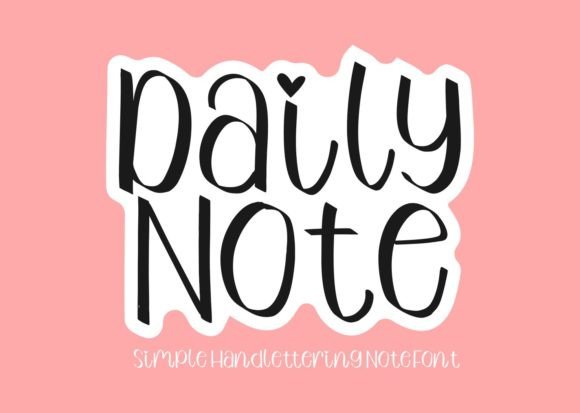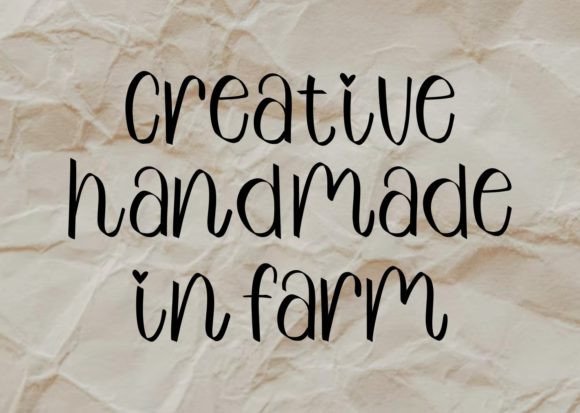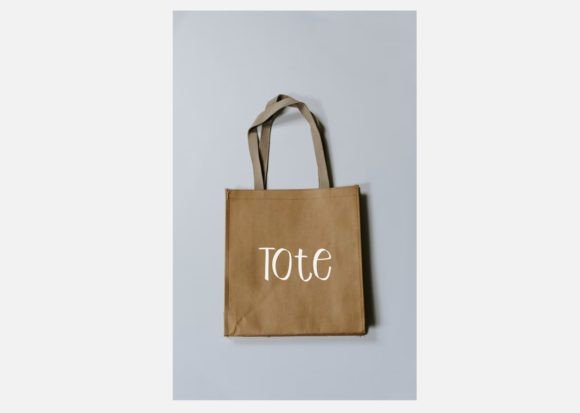
About Daily Note Font Download
The Daily Note Font Download is a cool, quirky, and casual handwritten script created to add charm and creativity to your projects. With playful strokes and natural handwritten flow, it adapts beautifully to both personal crafts and professional branding. Whether you design invitations, posters, or social media graphics, Daily Note makes your work stand out with style.
A Quirky Script with Casual Energy
The Daily Note script font blends casual handwritten details with a modern design. As a result, it feels fun, approachable, and stylish. Furthermore, it works equally well for small stationery projects and bold visual displays, which makes it versatile for designers.
Handwritten fonts always bring warmth and personality to stationery. The Daily Note Font is perfect for wedding invitations, birthday cards, thank you notes, and holiday greetings. Because of its quirky handwritten strokes, every card feels polished and memorable. In addition, it helps create a joyful impression.
Branding and Logo Design with Daily Note Font
Typography is a powerful tool for creating strong brand identity. The Daily Note handwritten font is excellent for boutique logos, product packaging, and promotional materials. Its quirky and casual style makes businesses appear friendly while staying professional. Therefore, it is especially suitable for creative, fashion, and lifestyle brands.
Posters, Titles, and Creative Displays
The Daily Note Font Download also performs wonderfully in posters, banners, book covers, and magazines. It stays clear in any size while adding handwritten personality. Consequently, it is a reliable choice for designers looking for charm and readability in one font.
In the digital age, fonts must grab attention instantly. The Daily Note typeface integrates seamlessly into Instagram posts, YouTube thumbnails, Pinterest boards, and blogs. Because of its quirky handwritten rhythm, it ensures your digital content looks modern, stylish, and engaging.
Why Designers Choose Daily Note Typeface
Designers appreciate fonts that balance creativity with readability. The Daily Note handwritten script keeps its quirky personality while remaining legible. This makes it a dependable choice for both professionals and hobbyists. Moreover, its timeless handwritten style ensures it stays relevant across all creative projects.
Add Quirky Charm to Your Projects Today
If you are searching for a handwritten script that feels casual, fun, and versatile, the Daily Note Font Download is the right option. From greeting cards and invitations to posters, logos, and social media, it enhances every design with playful handwritten energy. Finally, download Daily Note today and let your projects shine with creative charm.